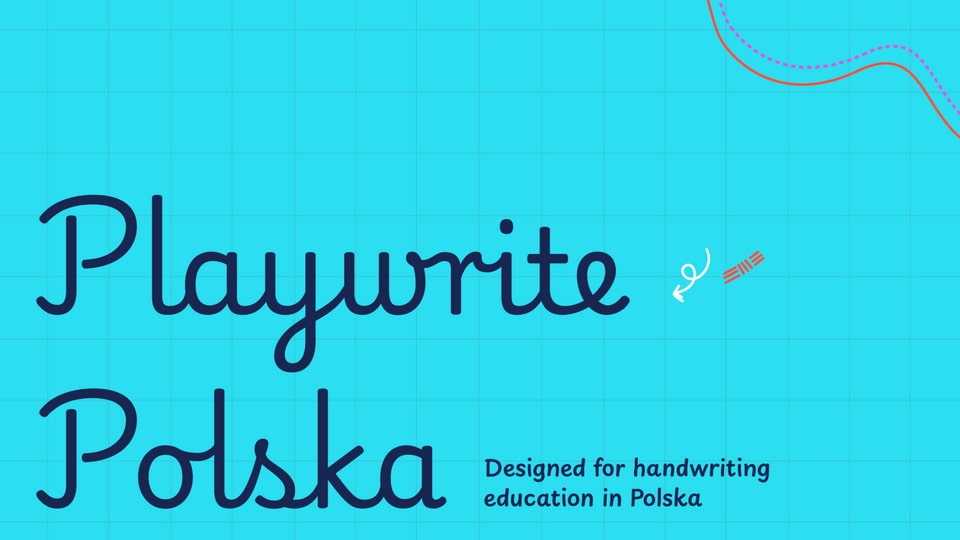
Download Playwrite Polska font, a typeface engine that allows the creation of primary school cursive fonts. The prevalent model for handwriting education is a loop-less, fully-joined vertical cursive
Designer: TypeTogether